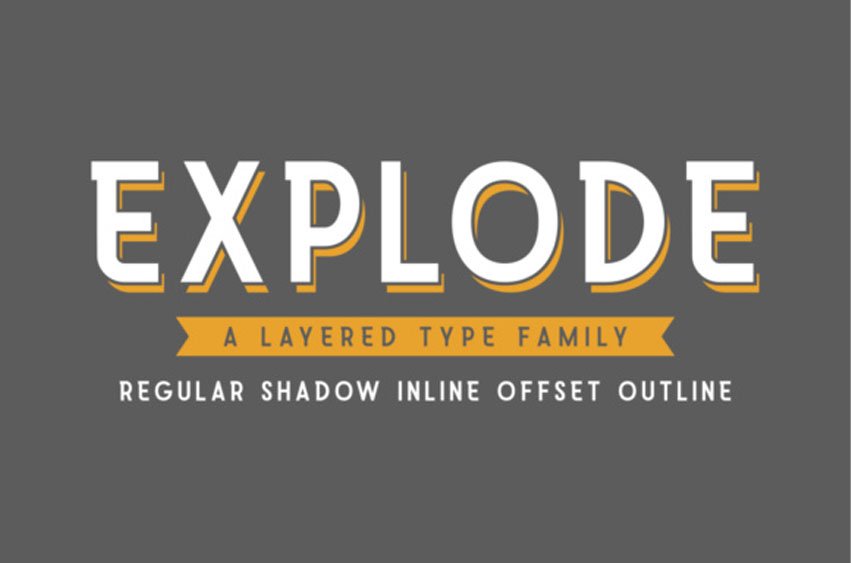
Explode Family Font is a layered type family that comes in four weights.
Explode is simple, easy, playful, and works great for branding, labels, greeting cards, displays, headers, and much more.